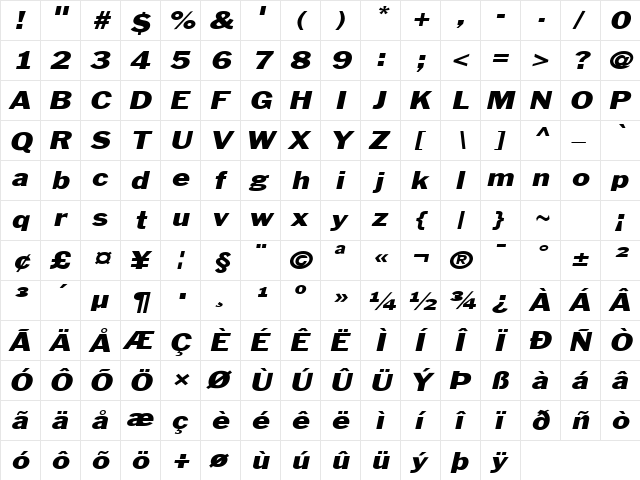
Philadelphia-Extended Italic
Design Context for Philadelphia-Extended Typeface
Philadelphia-Extended offers clean, dependable letterforms without strong stylistic allegiance, making it a practical choice for designers who need flexibility. The slanted form adds forward momentum and visual energy.
Pro Tip: Use Philadelphia-Extended for emphasis, pull quotes, and subheadings where its slanted energy can add rhythm to the layout.